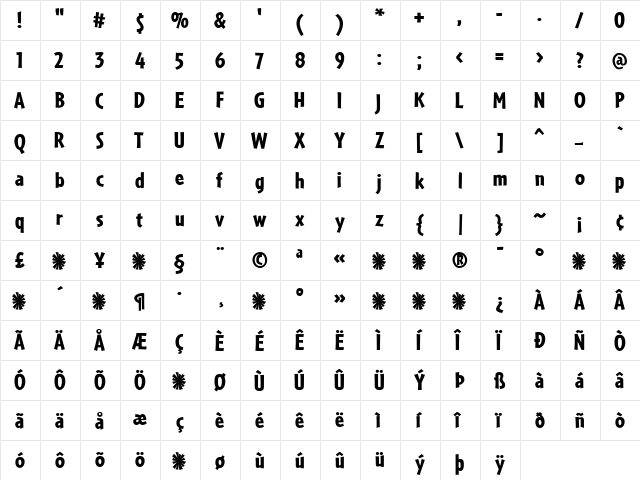
Cafeteria Regular
| Foundry | Copr. Tobias Frere-Jones. Designed by Tobias Frere-Jones. Produced by The Font Bureau, Inc |
Design Context for Cafeteria Typeface
Cafeteria offers clean, dependable letterforms without strong stylistic allegiance, making it a practical choice for designers who need flexibility.